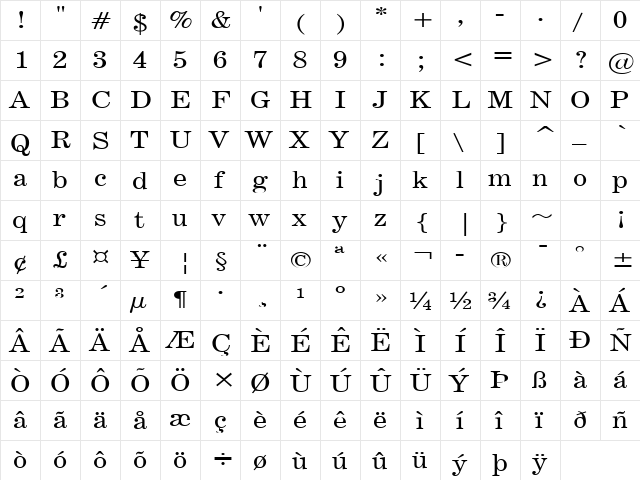
Annual-Extended Normal
Design Context for Annual-Extended Typeface
Annual-Extended is a composed and adaptable typeface that performs quietly and consistently across a wide range of design contexts.